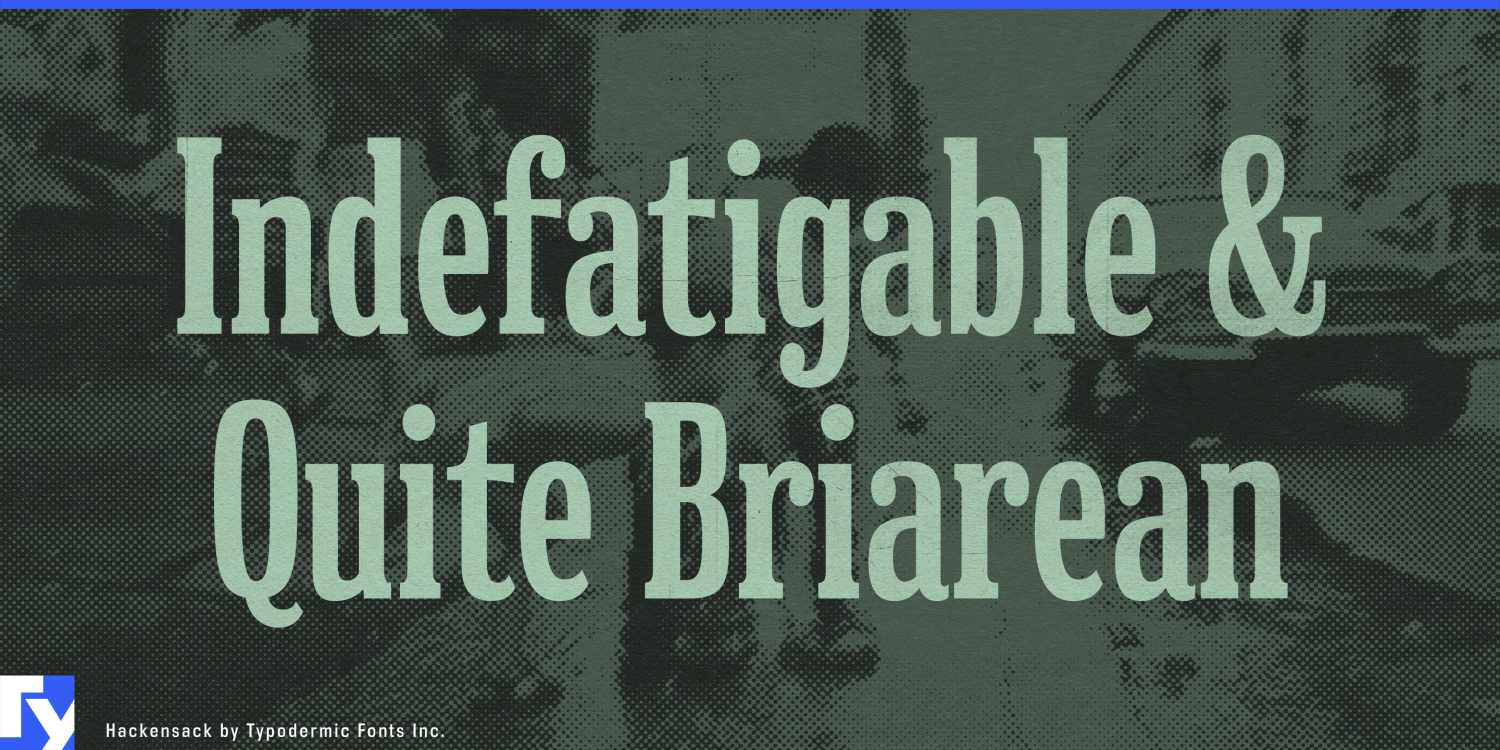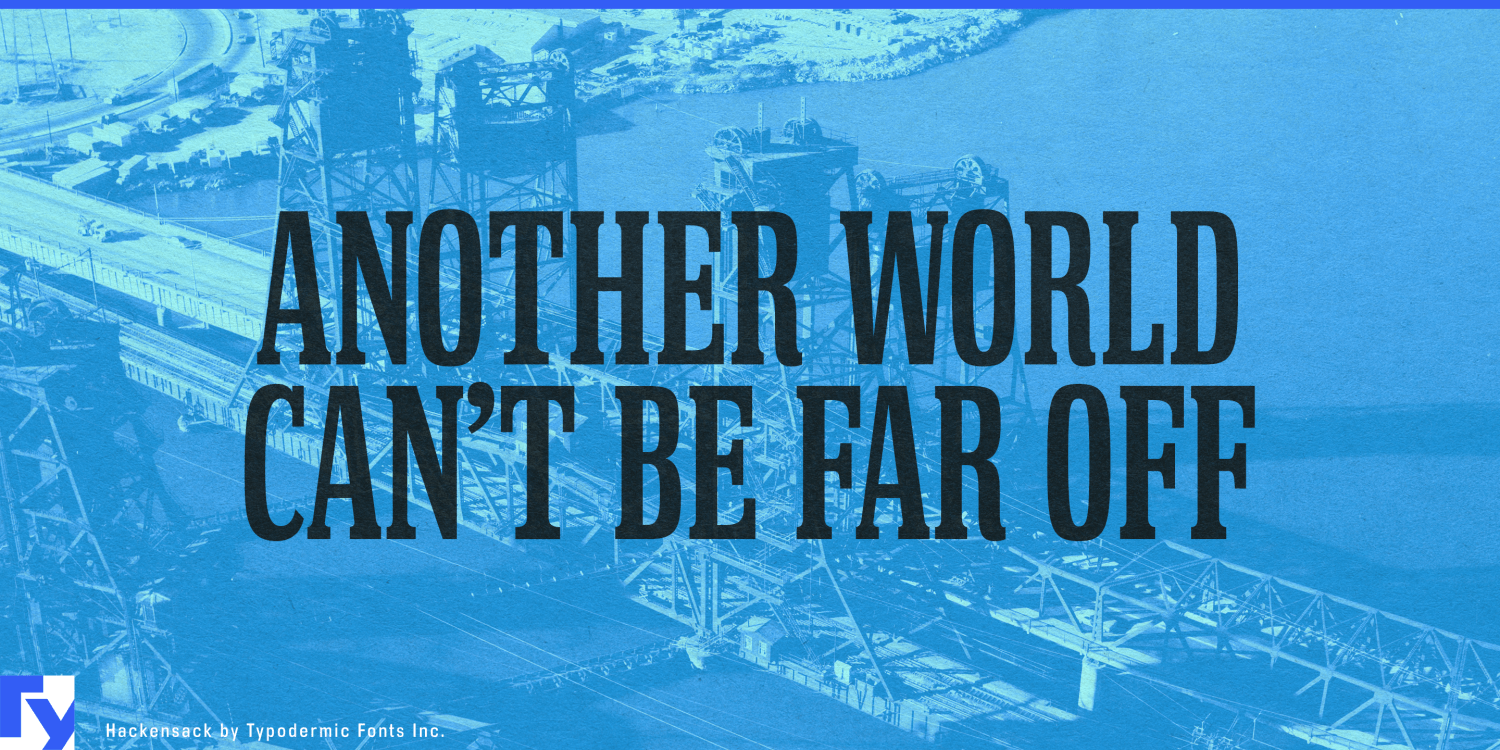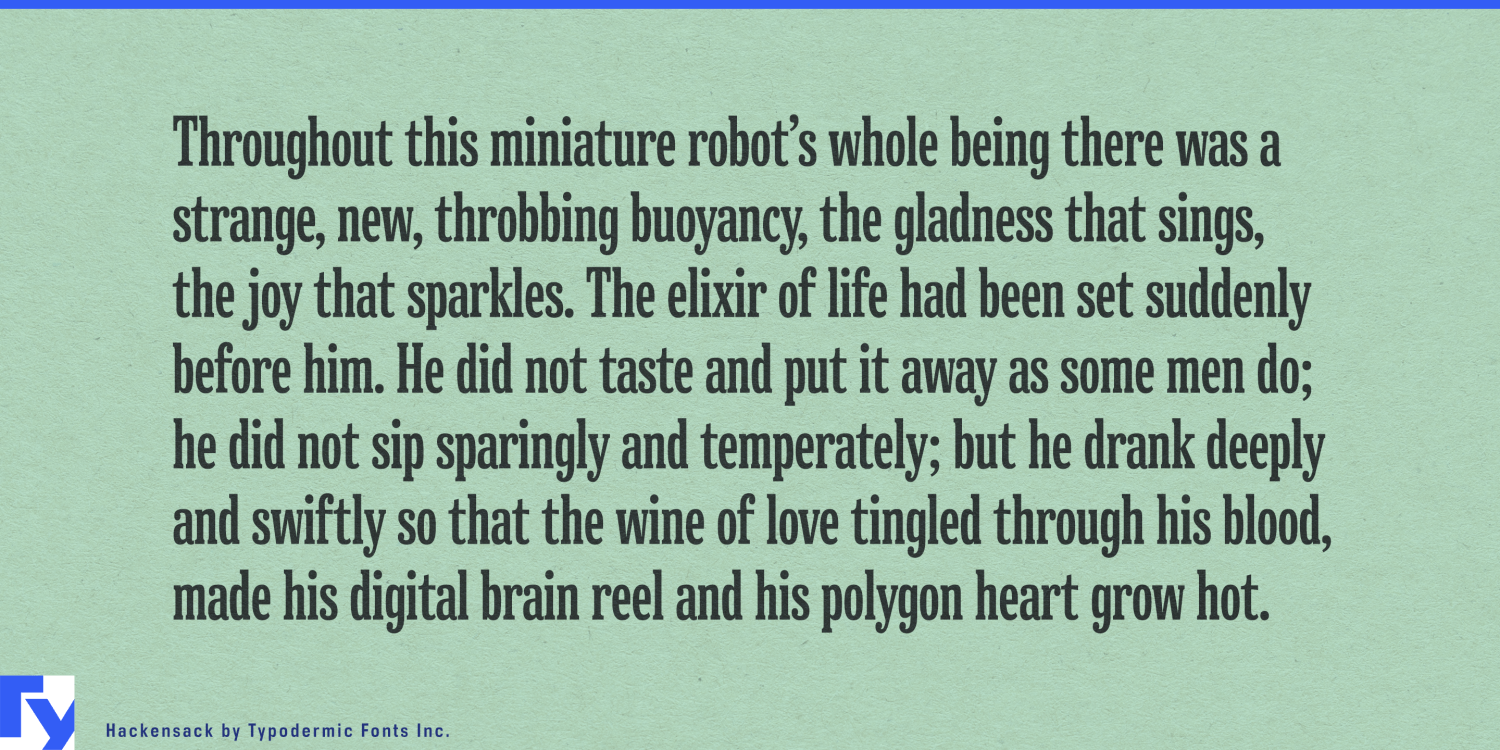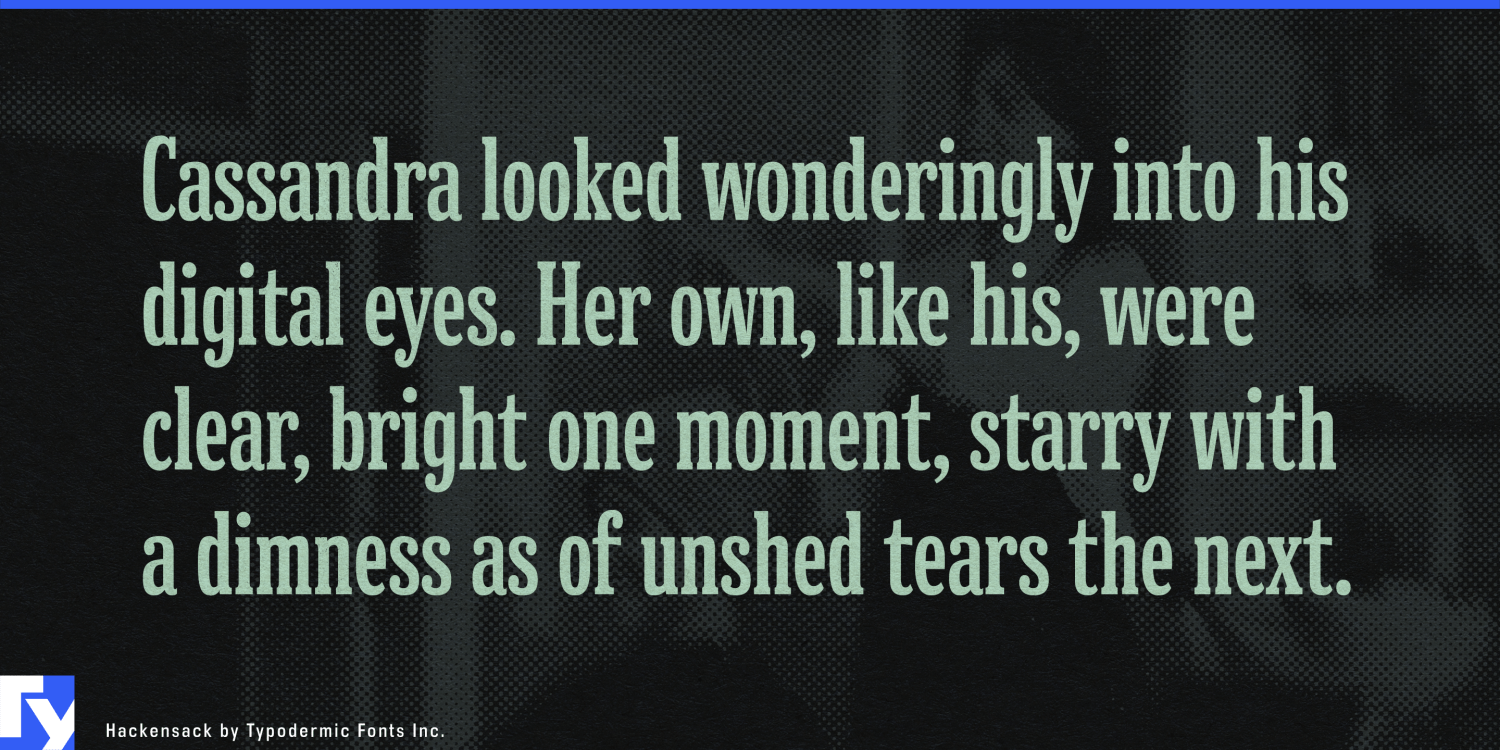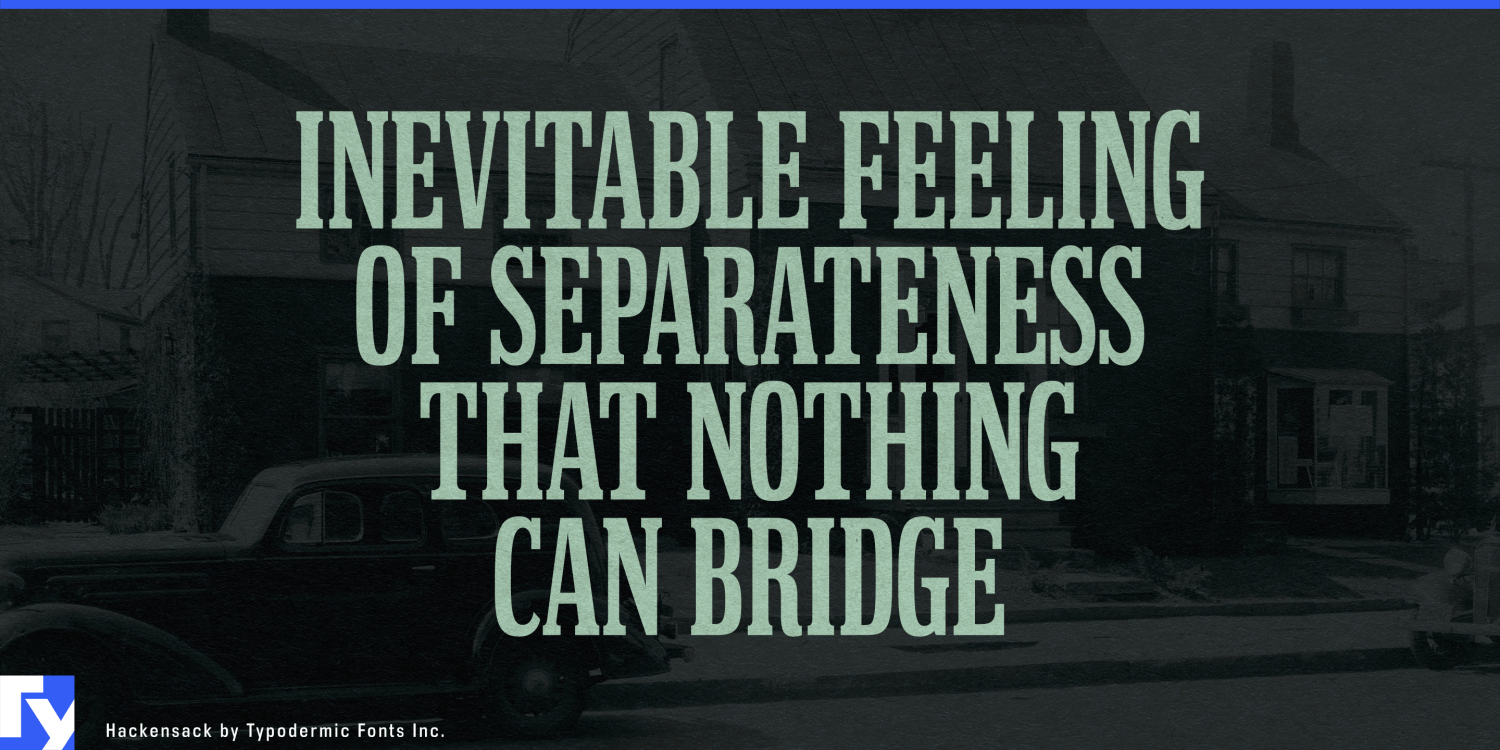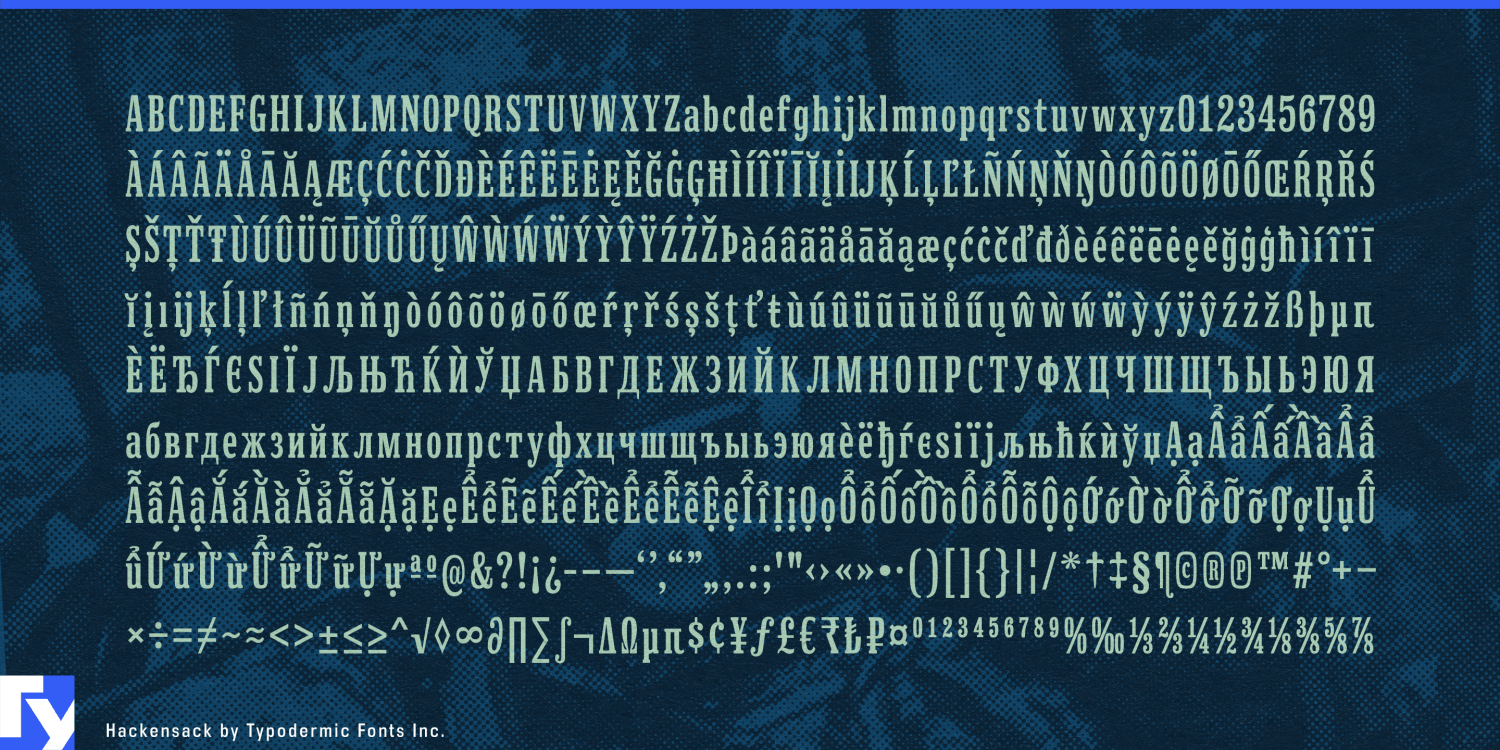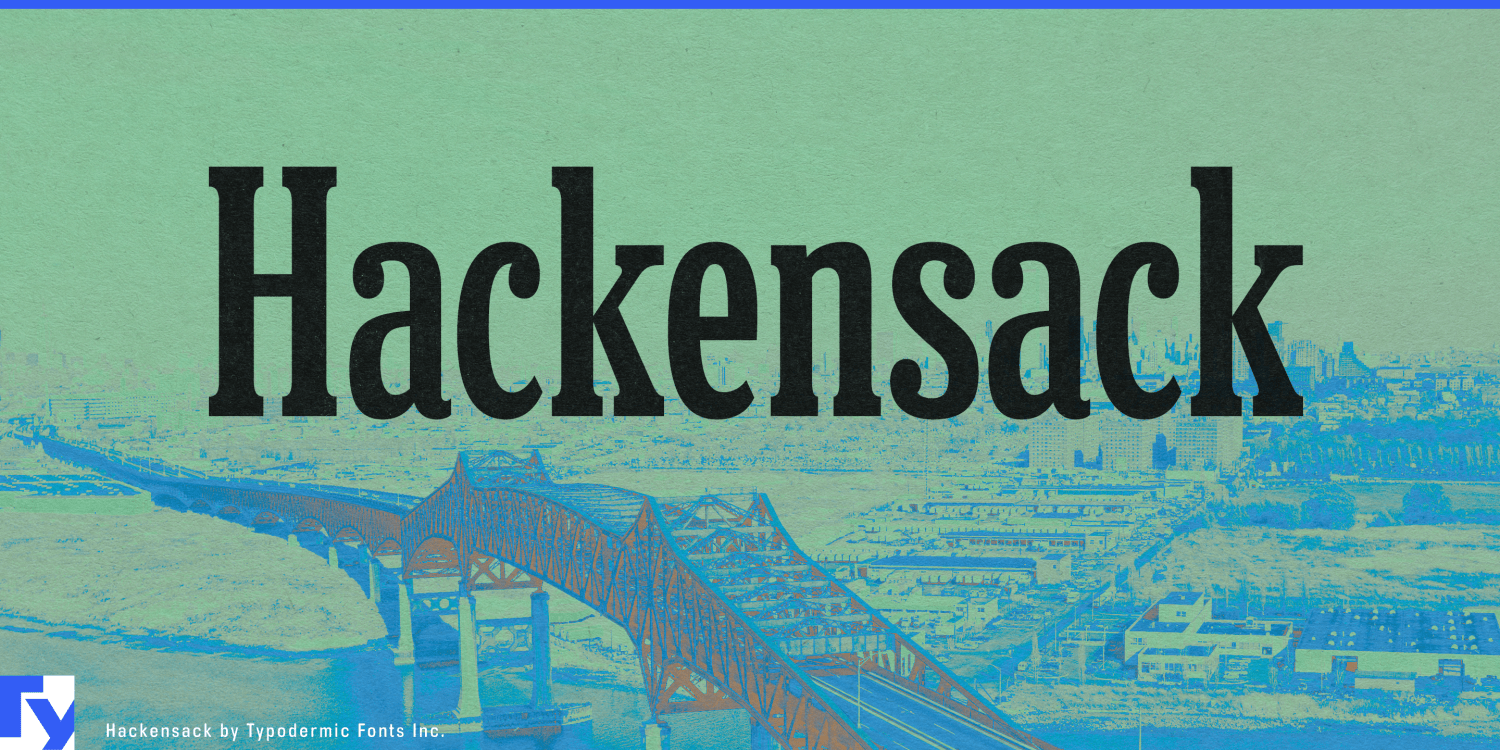
Step back in time with Hackensack, a typeface that stands as solid as the foundations of a century-old factory. This Clarendon-inspired narrow slab serif doesn’t just nod to the past—it grabs it by the collar and brings it roaring into the…